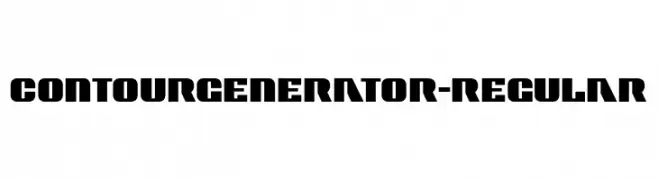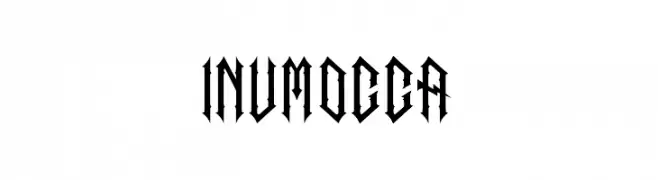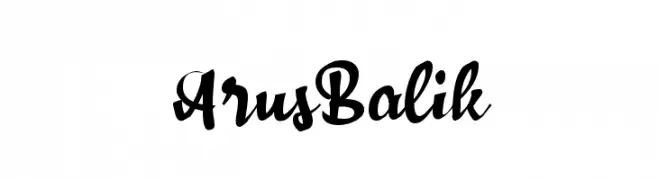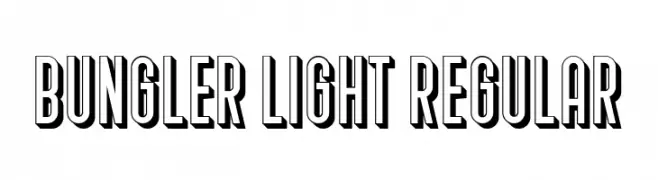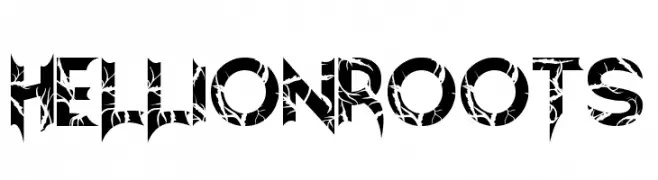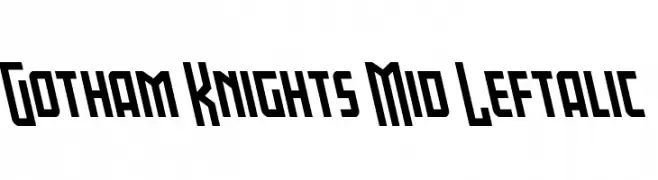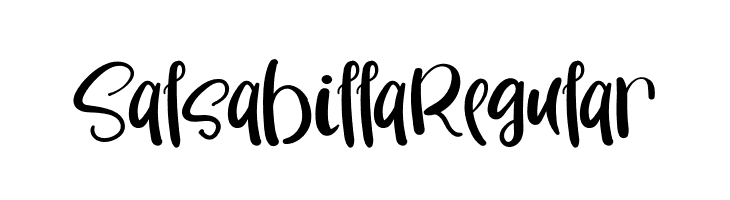
A bold, geometric font with strong, angular lines and a modern aesthetic.
A bold, angular font with a gothic and edgy style.
A bold, expressive handwritten script font with dynamic curves.
A bold, distressed font with a grunge aesthetic and varied character widths.
A bold, 3D font with a shadow effect and modern aesthetic.
A graceful and elegant script font with flowing, connected letterforms.
A fluid, handwritten-style font with a casual yet sophisticated appearance.
A bold, distressed font with sharp, angular edges and a rebellious aesthetic.
A whimsical, artistic font with flowing, cursive-like strokes and playful loops.
A bold, slanted, and geometric font with a dynamic and energetic style.